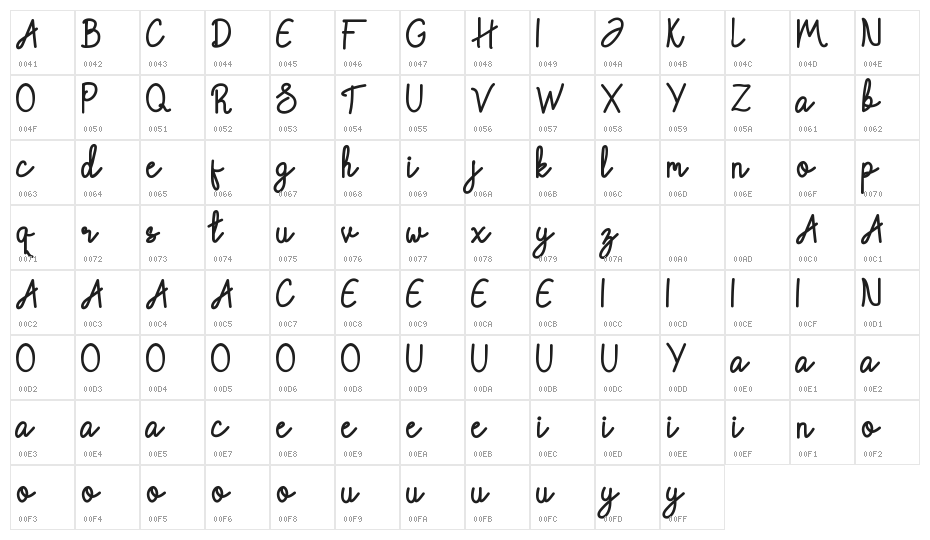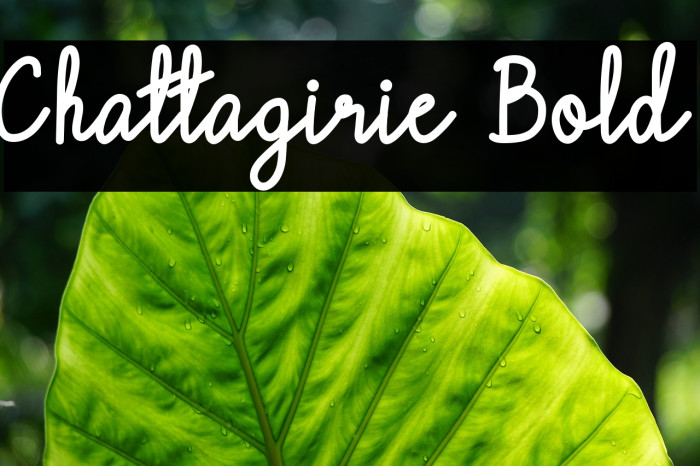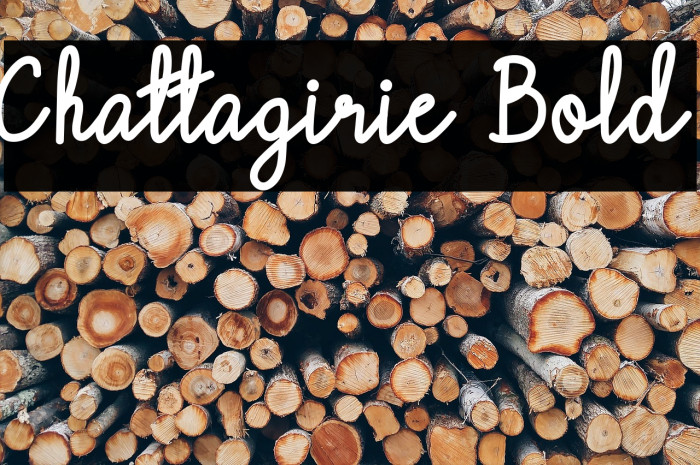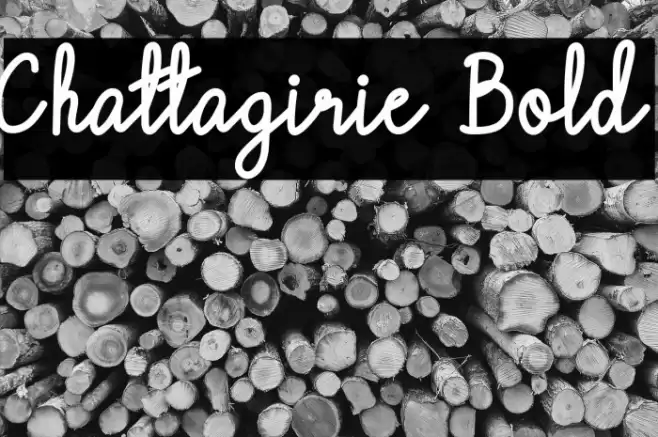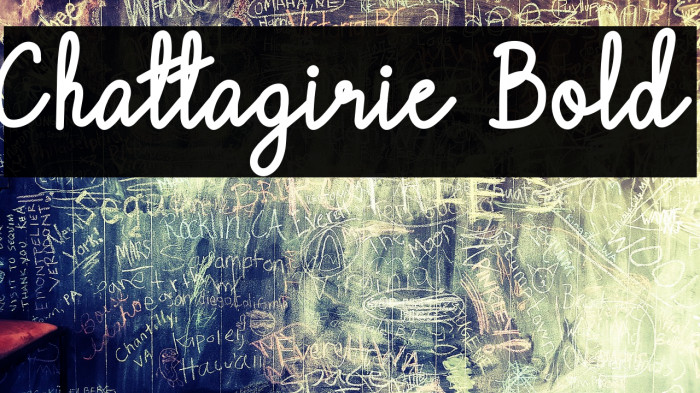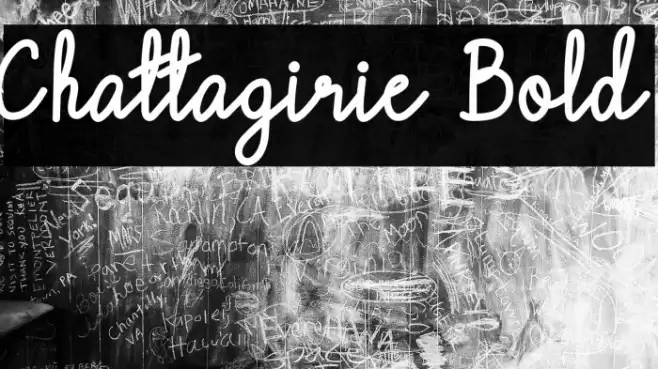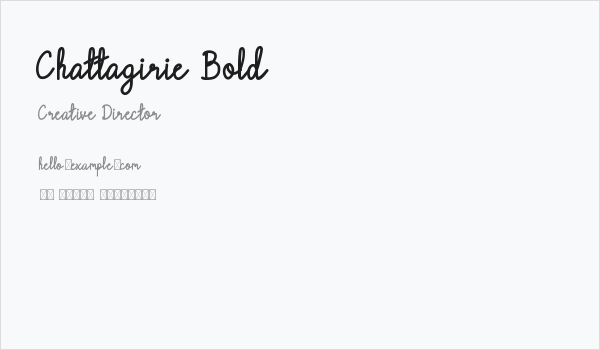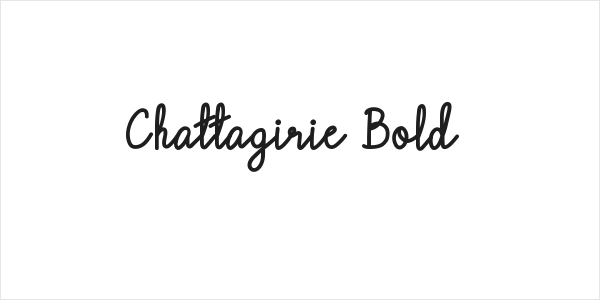
Chattagirie Bold Font
Chattagirie Bold Description
This font features a bold, handwritten style with a playful and casual appearance. The letters are slightly slanted, giving it a dynamic and energetic feel. The strokes are consistent in thickness, contributing to a cohesive look across all characters. The uppercase letters are distinct and easily readable, while the lowercase letters have a smooth, flowing quality that enhances the handwritten aesthetic. The numbers and special characters maintain the same playful style, ensuring uniformity throughout the font. This font is ideal for projects that require a personal touch or a relaxed, informal vibe.
| Proposed Projects | Ideal for greeting cards, invitations, personal branding, and social media graphics. |